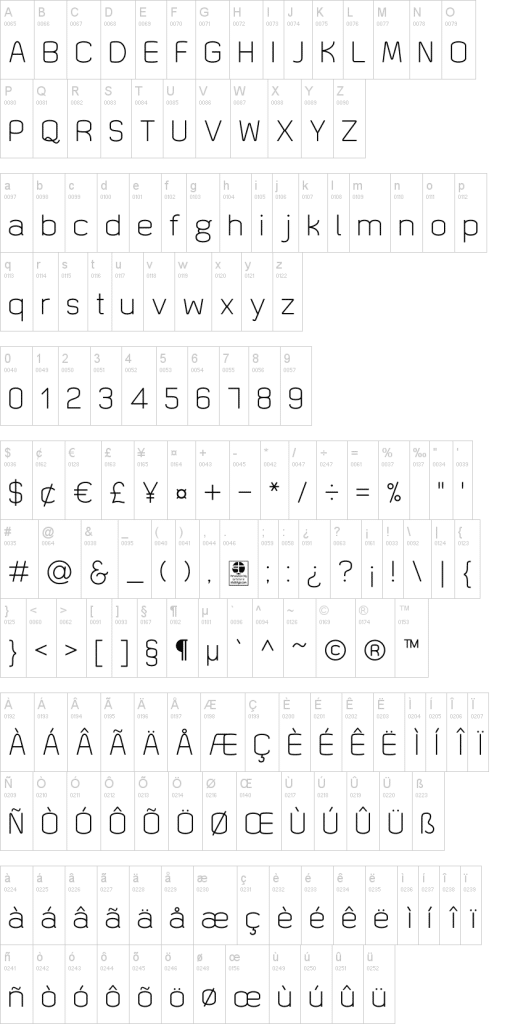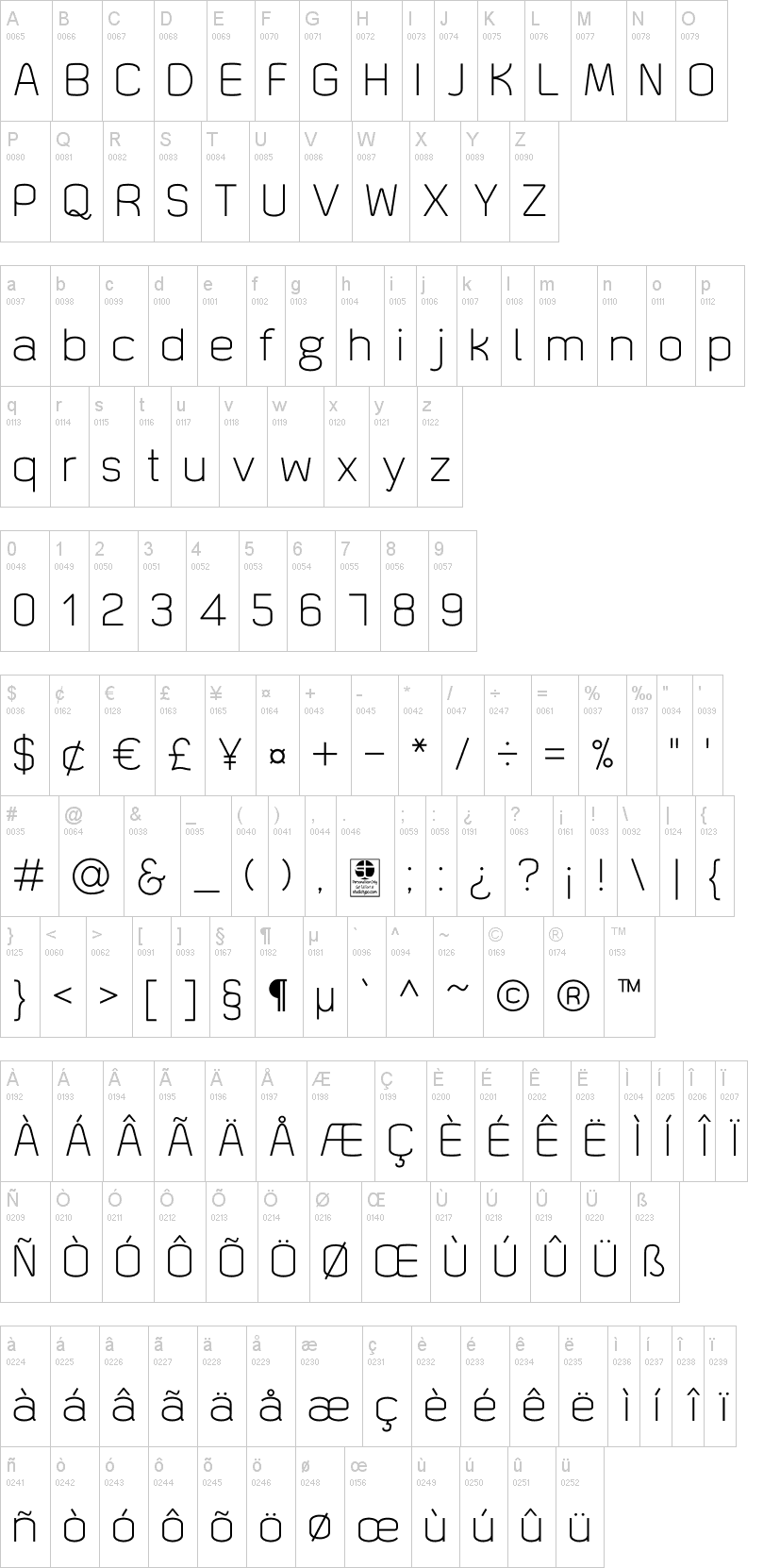
Quizma Font
The font is a modern Sans serif font that comes with Light,light Italic,Thin and Thin Italic versions.This font is free for personal use.
The periods drive me crazy! Other then that this is one of me favorite fonts.